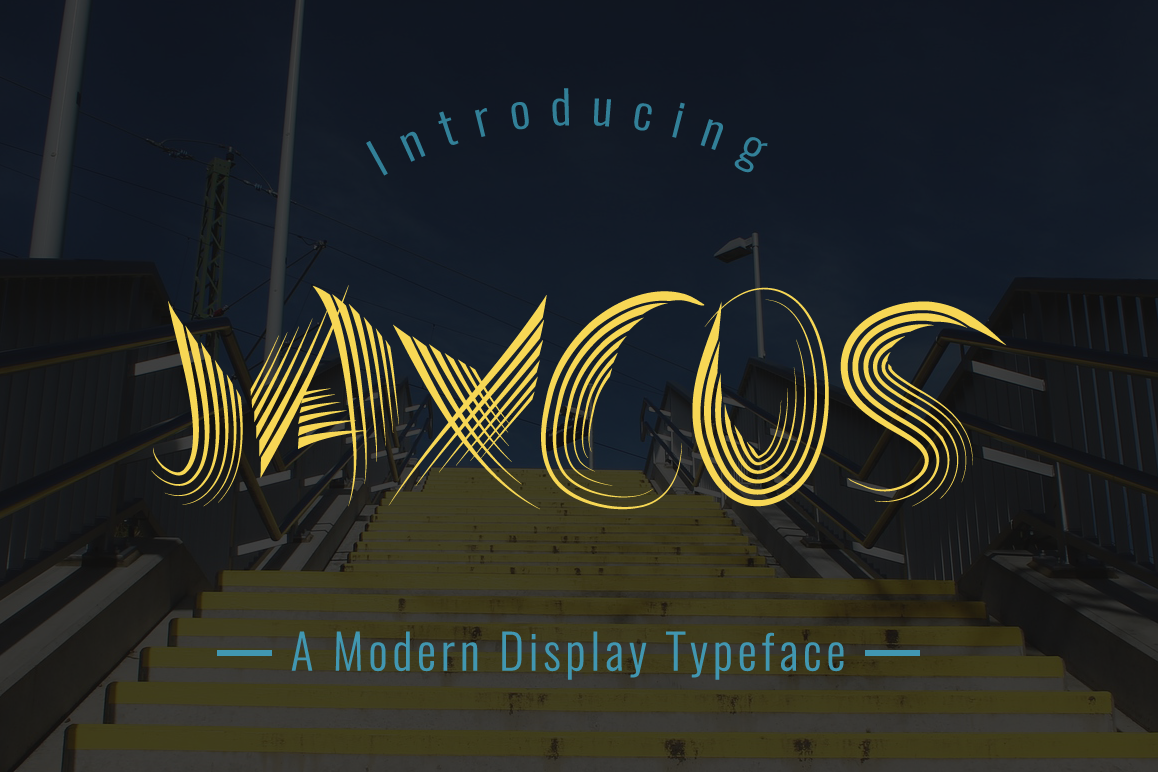
Jaxcos
Introducing Jaxcos!
Jaxcos
is a fresh modern display font.
Jaxcos
is perfectly suited to stationery, logos, t-shirt, paper, print design, website header, photo frame, flyer, music cover, poster, image slider and much more.